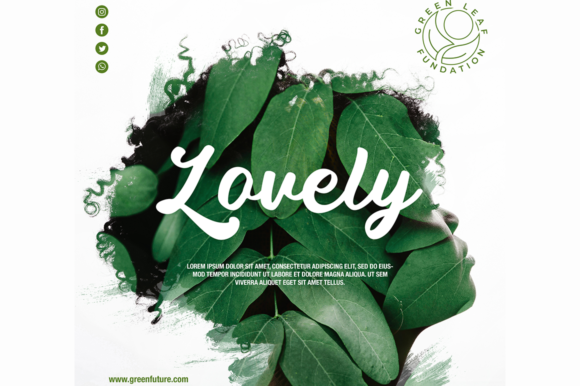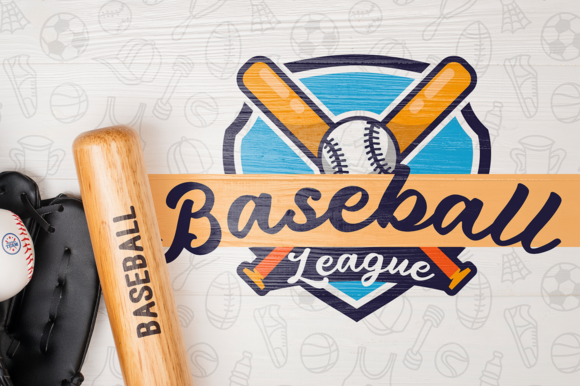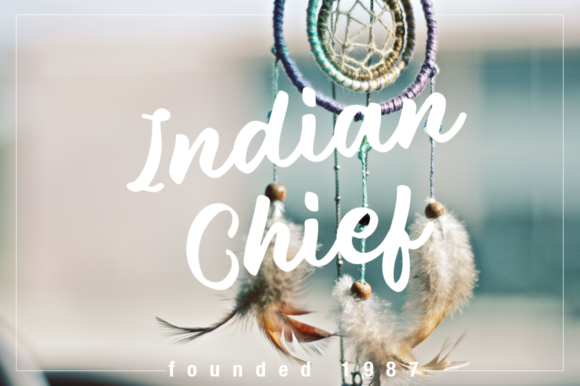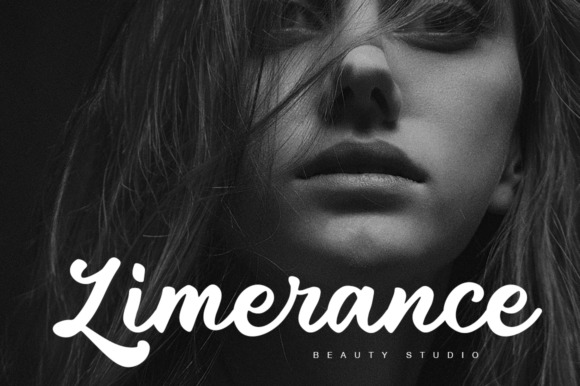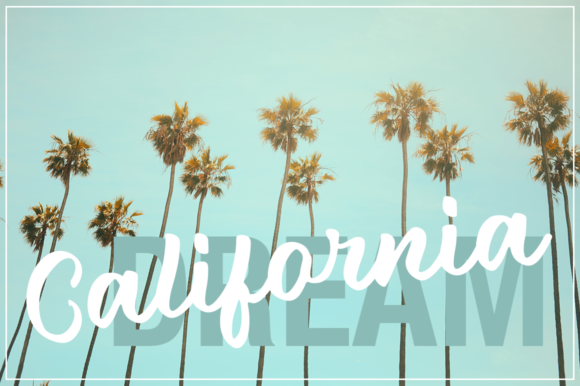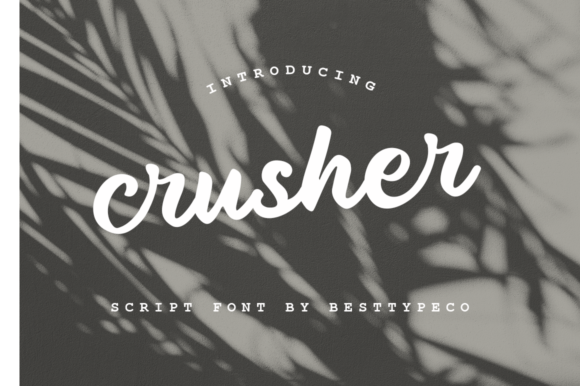
Crusher Font: The Perfect Companion for Your DIY Projects
Are you a designer, crafter, or DIY enthusiast looking for a font that can add a personal touch to your projects? Look no further than Crusher Font, a sincere and lighthearted script that will effortlessly improve any DIY project. In this article, we’ll dive into the world of Crusher Font, exploring its features, benefits, and uses, and why it’s the perfect companion for your creative endeavors.
What is Crusher Font?
Crusher Font is a beautiful, hand-crafted script font that exudes a sense of friendliness and approachability. Its unique, cursive style is perfect for adding a personal touch to your DIY projects, whether you’re working on a craft, a blog, or a website. With its flowing lines and carefree spirit, Crusher Font is sure to bring a smile to your face and inspire your creativity.
Features of Crusher Font
So, what makes Crusher Font so special? Here are just a few of its standout features:
- Hand-crafted with love: Crusher Font is a genuine, handmade script that has been carefully crafted to ensure a personal and unique feel.
- Lighthearted and sincere: This font is designed to be friendly and approachable, making it perfect for DIY projects, crafts, and other creative endeavors.
- Easy to read: Despite its cursive style, Crusher Font is remarkably legible, making it suitable for use in a variety of contexts, from headings to body text.
- Versatile: Crusher Font can be used for a wide range of projects, from crafting and DIY to blogging and web design.
Benefits of Using Crusher Font
So, why should you choose Crusher Font for your DIY projects? Here are just a few benefits of using this wonderful font:
- Adds a personal touch: Crusher Font’s unique, hand-crafted style ensures that your projects will stand out from the crowd and reflect your personality.
- Enhances creativity: With its lighthearted and sincere feel, Crusher Font is sure to inspire your creativity and help you come up with fresh ideas.
- Perfect for DIY projects: Whether you’re working on a craft, a blog, or a website, Crusher Font is the perfect companion for your DIY projects.
Uses of Crusher Font
So, what can you use Crusher Font for? The possibilities are endless! Here are just a few ideas to get you started:
- Crafting and DIY projects: Crusher Font is perfect for adding a personal touch to your crafting and DIY projects, from knitting patterns to woodworking plans.
- Blogging and web design: Use Crusher Font to add a friendly, approachable feel to your blog or website.
- Sign making and lettering: Crusher Font’s unique style makes it perfect for use in sign making and lettering projects.
- Paper crafting and card making: Add a personal touch to your paper crafting and card making projects with Crusher Font.
In conclusion, Crusher Font is a wonderful, hand-crafted script font that is perfect for DIY projects, crafts, and other creative endeavors. With its lighthearted and sincere feel, Crusher Font is sure to inspire your creativity and add a personal touch to your projects. Whether you’re a designer, crafter, or DIY enthusiast, Crusher Font is a must-have font that will effortlessly improve any project. So why wait? Download Crusher Font today and start creating something amazing!